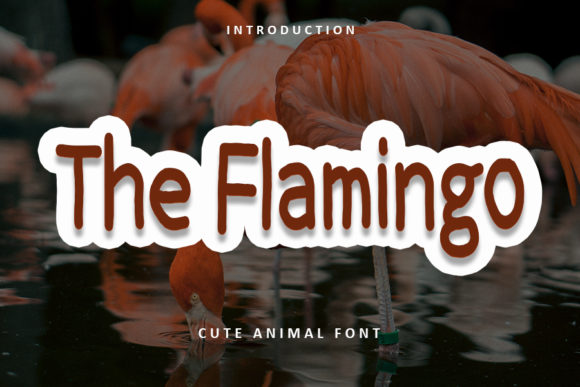
About The Flamingo Font
The Flamingo sounds like a delightful font choice! A sweet and innocent handwritten font with uneven lines, The Flamingo offers a charming and personal touch to various design projects. Its unique characteristics make it particularly suitable for headings in teaching materials, cards, children’s invitations, social media posts, and more.
When it comes to teaching materials, The Flamingo can add a playful and engaging element to your headings. Its handwritten style with uneven lines conveys a sense of creativity and whimsy, making the content more appealing to students. Whether you’re designing worksheets, lesson plans, or educational resources, The Flamingo can help create a warm and inviting learning environment.
For cards and children’s invitations, The Flamingo’s sweet and innocent appearance can capture the essence of joy and excitement. Its uneven lines contribute to a handmade and personal feel, making the recipients feel special. Whether it’s for birthday invitations, baby shower cards, or other celebrations, The Flamingo can bring a touch of whimsical charm to your designs.
Social media posts can benefit from The Flamingo’s personal touch as well. Whether you’re sharing quotes, announcements, or creative content, this font adds a sense of authenticity and uniqueness. Its uneven lines create a handcrafted look that stands out in a digital environment, making your posts more eye-catching and engaging.
Adding The Flamingo to anything that needs a personal touch can bring warmth and character to your designs. Its handwritten style adds a sense of intimacy and individuality, making your creations feel more personal and relatable. Whether it’s for digital graphics, stationery, or any other design project, The Flamingo can help you create visually appealing and heartfelt pieces.
While The Flamingo’s uneven lines contribute to its charm, it’s important to consider readability for longer bodies of text. It’s advisable to use The Flamingo primarily for headings, titles, or short phrases, pairing it with more legible fonts for longer paragraphs or smaller text elements.
In summary, The Flamingo is a sweet and innocent handwritten font with uneven lines, adding a personal touch to headings in teaching material, cards, children’s invitations, social media posts, and more. Embrace its playful and charming aesthetic to create designs that evoke joy and creativity. Enjoy incorporating The Flamingo into your projects and let your imagination soar!